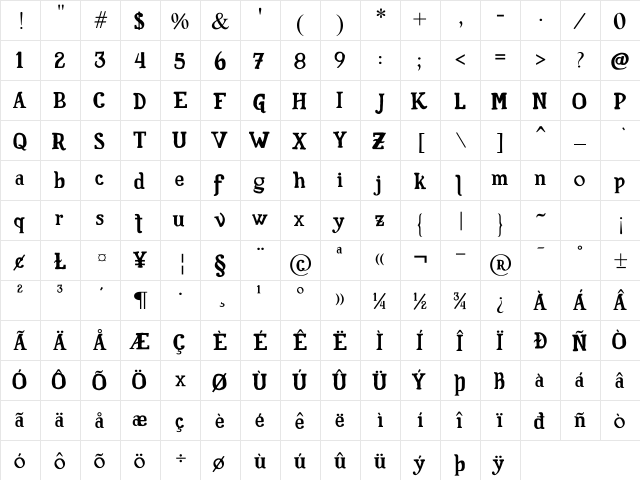
Fam Fuerte Regular
| Designer | (c) Juan Casco |
Design Context for Fam Fuerte Typeface
Fam Fuerte is a composed and adaptable typeface that performs quietly and consistently across a wide range of design contexts.
Pro Tip: Use Fam Fuerte in both headline and body roles to test its range before committing to a single application.